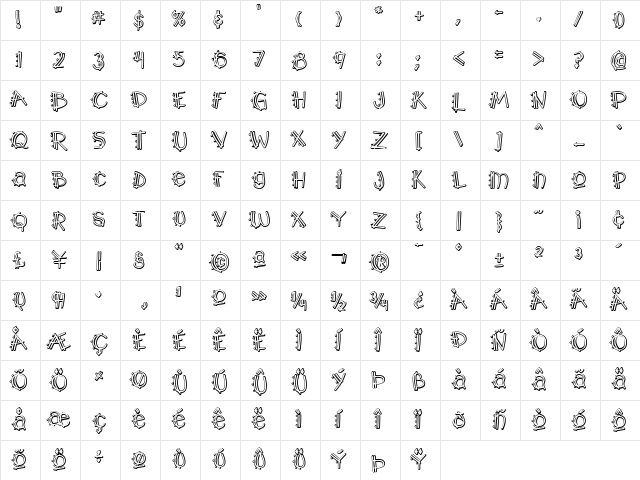
Y2K PopMuzik Outline AOE Regular
| Foundry | Astigmatic (AOETI) |
| Designer | Brian J. Bonislawsky, Astigmatic |
Design Context for Y2K PopMuzik Outline AOE Typeface
Y2K PopMuzik Outline AOE is built around its visual character rather than neutral utility — its distinctive forms are designed to make an impression at display sizes.
Font Pairing: Pair with a clean neutral sans-serif for body copy to let Y2K PopMuzik Outline AOE's character lead without overwhelming the composition.
Pro Tip: Treat Y2K PopMuzik Outline AOE as the centrepiece of your typographic hierarchy. One strong heading set in a decorative face can carry an entire layout.